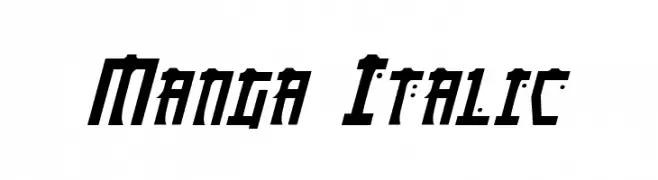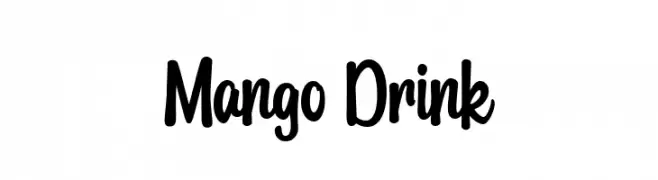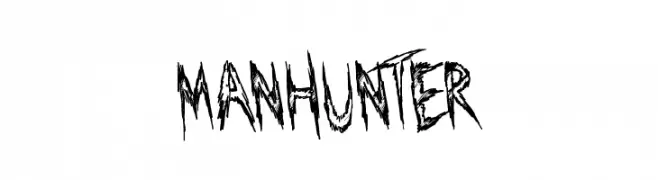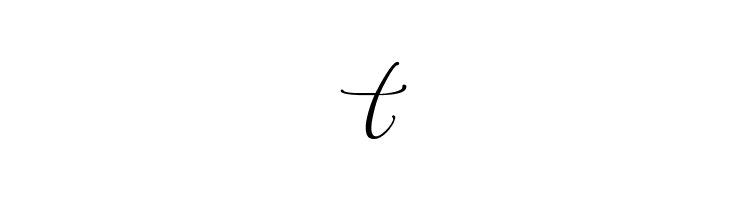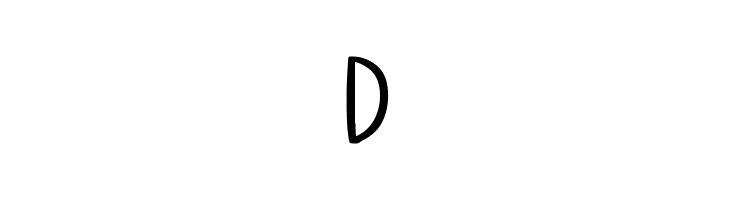
A bold, angular, and futuristic italic font with unique cut-out details.
A playful, bold font with a hand-drawn, informal style.
A playful handwritten font with a casual and friendly appearance.
An elegant and flowing script font with intricate loops and swashes.
A rugged, distressed font with jagged edges and an aggressive style.
A bold, circular font with enclosed characters, offering a playful and retro vibe.
A bold, rounded font with characters enclosed in thick circular outlines.